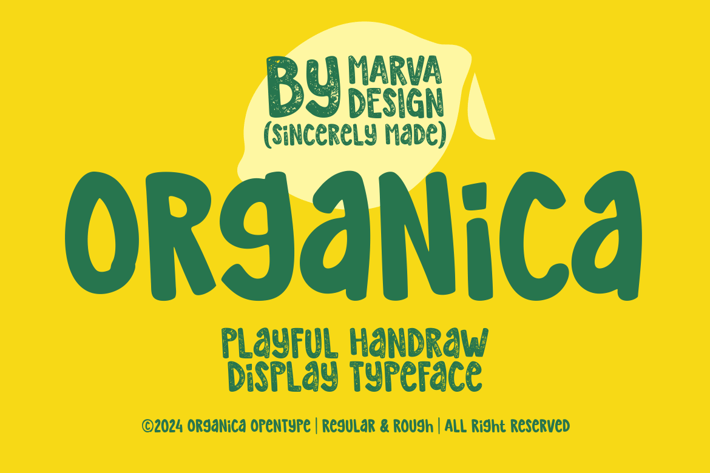
Organica Font
Introducing Organica is a playful hand-drawn font characterized by its unique . This font brings a fun and lively touch to any design project, making it perfect for informal and creative themes. Organica comes in two variants, regular and rough, allowing for greater flexibility and expression in your designs. Whether you need a clean, smooth look or a more textured, rugged appearance.